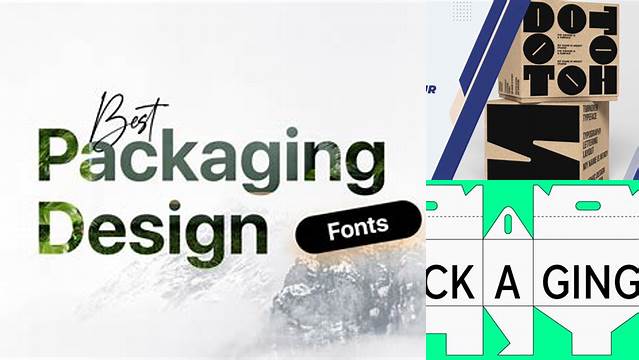
Best Fonts For Packaging: A Designer's Guide
Choosing the right font for your packaging design is crucial. The font sets the tone, communicates your brand's personality, and ensures readability. Selecting the perfect font can significantly impact how consumers perceive your product. It is a balance between aesthetics, legibility, and brand identity, ensuring your packaging not only looks good but also effectively communicates its message. In this article, we'll dive into the world of fonts and explore how to make the best choices for your packaging needs. Let's get started, guys!
Why Fonts Matter in Packaging
Fonts play a pivotal role in how your product is perceived. The right font can convey trustworthiness, luxury, playfulness, or sophistication. Think of the font as the voice of your brand – it speaks to your target audience even before they read the words. A well-chosen font enhances brand recognition and builds a cohesive brand identity. When customers see your packaging on the shelf, the font is one of the first elements that catch their eye. If it aligns with your brand's image and values, it reinforces positive associations. Moreover, fonts affect readability. A stylish but illegible font can frustrate consumers, leading them to overlook important information about the product. Clarity is key, especially for essential details like ingredients, usage instructions, and expiration dates. The font also needs to be appropriate for the product category. For example, a playful, rounded font might work well for children's products, while a clean, sans-serif font could be suitable for tech gadgets. Consider the overall design of your packaging. The font should complement the graphics, colors, and layout to create a harmonious and visually appealing design. It should also be versatile enough to work across different packaging formats and sizes. Ultimately, the right font helps your product stand out on the shelf, attracts attention, and communicates your brand's message effectively. It's an investment in creating a memorable and positive impression on your target audience.
Key Considerations When Selecting Fonts
When it comes to selecting fonts, several key considerations come into play. First and foremost, consider readability. The font must be easy to read at various sizes and distances. Avoid overly decorative or complex fonts that can strain the eyes. Clarity is especially important for crucial information like product names, ingredients, and instructions. Secondly, think about your brand identity. The font should align with your brand's personality and values. Is your brand modern and innovative, or classic and traditional? Choose a font that reflects these qualities. For instance, a sleek sans-serif font might suit a tech company, while a serif font could be ideal for a heritage brand. Consider the target audience. What kind of fonts would appeal to them? Research their preferences and tailor your font choices accordingly. For younger consumers, a trendy and playful font might be appropriate, while older demographics might prefer something more classic and legible. Also, think about the packaging material and printing method. Some fonts may not reproduce well on certain materials or with specific printing techniques. Test your font choices on different packaging prototypes to ensure they look good in the final product. Consider the font's versatility. It should work well in headlines, body text, and other elements of your packaging design. Choose a font family that offers a range of weights and styles to provide flexibility. Don't forget about licensing. Make sure you have the necessary rights to use the font commercially. Some fonts are free for personal use but require a license for commercial applications. By carefully considering these factors, you can choose fonts that enhance your packaging design and effectively communicate your brand's message.
Top Font Categories for Packaging
Understanding the top font categories is essential for making informed decisions. Serif fonts are characterized by small decorative strokes at the end of each character. They convey a sense of tradition, authority, and elegance. Popular serif fonts include Times New Roman, Garamond, and Baskerville. These fonts are often used for high-end products and brands that want to project a classic image. Sans-serif fonts, on the other hand, lack these decorative strokes and have a cleaner, more modern appearance. Helvetica, Arial, and Futura are common examples. Sans-serif fonts are versatile and work well for a wide range of products, from tech gadgets to food packaging. They are particularly effective for conveying a sense of simplicity, clarity, and innovation. Script fonts mimic handwriting and add a touch of personality and flair to packaging designs. However, they can be challenging to read, so they are best used sparingly, such as for logos or short taglines. Examples include Brush Script, Pacifico, and Lobster. Script fonts are suitable for products that want to convey a sense of craftsmanship, artistry, or luxury. Display fonts are designed to grab attention and are often used for headlines and titles. They come in a wide variety of styles, from bold and geometric to whimsical and playful. Examples include Impact, Bebas Neue, and Cooper Black. Display fonts should be used sparingly and paired with more legible fonts for body text. Monospace fonts, where each character occupies the same amount of horizontal space, are often used for technical or industrial products. Courier New and Consolas are common examples. These fonts convey a sense of precision and uniformity. By understanding the characteristics and applications of these different font categories, you can make more informed choices and create packaging designs that effectively communicate your brand's message.
Pairing Fonts Effectively
Pairing fonts is an art that can greatly enhance the visual appeal and readability of your packaging. Effective font pairing involves choosing two or more fonts that complement each other and create a harmonious design. The goal is to create a visual hierarchy that guides the reader's eye and makes the information easy to understand. One common approach is to pair a serif font with a sans-serif font. For example, you could use a serif font for headlines and a sans-serif font for body text, or vice versa. This creates a contrast that adds visual interest and improves readability. When choosing fonts to pair, consider their x-height, which is the height of the lowercase letters. Fonts with similar x-heights tend to work well together. Also, pay attention to the font weights. A bold font can be paired with a lighter font to create contrast and emphasis. Avoid pairing fonts that are too similar, as this can create a monotonous and uninteresting design. Also, be cautious about pairing fonts that are too different, as this can create a jarring and chaotic effect. A good rule of thumb is to choose fonts from different categories or styles. For example, you could pair a classic serif font with a modern sans-serif font, or a script font with a geometric font. When in doubt, look for inspiration from successful packaging designs and typography examples. Many online resources offer font pairing suggestions and examples. Also, consider using a font pairing tool, which can help you find fonts that complement each other. Ultimately, the key to effective font pairing is experimentation and careful consideration. Try different combinations and evaluate them based on their visual appeal, readability, and alignment with your brand identity. Remember, the goal is to create a cohesive and harmonious design that effectively communicates your message.
Font Size and Spacing
Font size and spacing are critical elements that significantly impact the readability and overall appearance of your packaging design. Optimizing font size ensures that your text is legible and easy to read at various distances. Too small, and customers will struggle to read the information; too large, and it can overwhelm the design. The ideal font size depends on several factors, including the font itself, the packaging material, and the target audience. For body text, a font size of 10 to 12 points is generally recommended. However, for headlines and titles, you can use larger font sizes to grab attention. Consider the viewing distance. If the packaging is likely to be viewed from a distance, such as on a store shelf, you may need to increase the font size. Also, think about the target audience. Older consumers may require larger font sizes to read comfortably. Spacing, including letter spacing, word spacing, and line spacing, also plays a crucial role in readability. Tight spacing can make the text look crowded and difficult to read, while excessive spacing can make it look disjointed. Adjust the letter spacing to create a balanced and harmonious appearance. Word spacing should be wide enough to distinguish individual words but not so wide that it creates gaps in the text. Line spacing, also known as leading, is the vertical space between lines of text. Adequate line spacing improves readability by preventing the lines from overlapping. A general rule of thumb is to set the line spacing to 120% to 150% of the font size. Experiment with different font sizes and spacing options to find the combination that works best for your packaging design. Test your design on different packaging prototypes and viewing conditions to ensure it is legible and visually appealing. Remember, the goal is to create a design that is both informative and aesthetically pleasing.
Legal and Cultural Considerations
Legal and cultural considerations are often overlooked but can be crucial in ensuring your packaging is compliant and respectful. Understanding legal requirements is essential to avoid potential fines or recalls. Many countries have specific regulations regarding font sizes for nutritional information, allergen warnings, and other mandatory disclosures. Research the regulations in your target markets and ensure that your packaging complies with all applicable laws. Cultural considerations are equally important. Fonts can have different connotations in different cultures. A font that is considered elegant and sophisticated in one culture might be perceived as outdated or inappropriate in another. Research the cultural preferences of your target audience and choose fonts that are culturally sensitive. Avoid using fonts that are associated with negative stereotypes or cultural appropriation. Pay attention to the language. If your packaging includes text in multiple languages, ensure that the fonts you choose support all the necessary characters and glyphs. Some fonts may not include characters for certain languages, which can lead to display errors. Also, consider the layout and design of your packaging. In some cultures, text is read from right to left, which can affect the placement of fonts and other design elements. Be mindful of color associations. Colors can have different meanings in different cultures, so choose colors that are appropriate for your target market. Consult with cultural experts or conduct market research to ensure that your packaging is culturally sensitive and compliant with local regulations. By considering these legal and cultural factors, you can create packaging that is both effective and respectful.
Tools and Resources for Font Selection
Navigating the world of font selection can be overwhelming, but numerous tools and resources are available to help you make informed decisions. Online font libraries, such as Google Fonts, Adobe Fonts, and MyFonts, offer a vast selection of fonts that you can browse, download, and use in your packaging designs. These libraries often provide previews and sample text to help you visualize how the font will look in different contexts. Font pairing tools, such as FontPair and Canva Font Combinations, can help you find fonts that complement each other and create a harmonious design. These tools offer suggestions and examples of font pairings that you can use as inspiration. Typography resources, such as books, articles, and online courses, can help you learn about the principles of typography and how to apply them to your packaging designs. These resources cover topics such as font anatomy, font classification, and font pairing. Design software, such as Adobe Photoshop, Adobe Illustrator, and Affinity Designer, provides tools for experimenting with different fonts and creating custom packaging designs. These programs allow you to adjust font sizes, spacing, and other parameters to achieve the desired look. Online communities and forums, such as Dribbble and Behance, offer a platform for sharing and discussing packaging designs and typography ideas. These communities can provide inspiration and feedback on your font choices. Font management tools, such as FontBase and RightFont, can help you organize and manage your fonts, making it easier to find and use the fonts you need. By leveraging these tools and resources, you can streamline the font selection process and create packaging designs that are both visually appealing and effective.
In conclusion, selecting the right fonts for packaging design involves a careful balance of aesthetics, readability, and brand identity. Choosing fonts impacts consumer perception, readability, and brand consistency. By considering factors like target audience, brand identity, and legal requirements, you can make informed decisions that enhance the effectiveness of your packaging. Don't underestimate the power of typography. With the right fonts, your packaging can tell a compelling story and connect with consumers on a deeper level. So go ahead, explore the world of fonts, and discover the perfect voice for your brand. Hope this helps, guys!